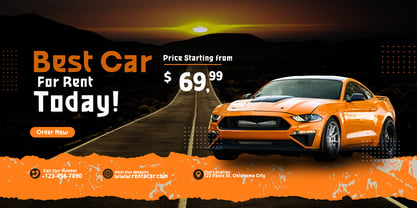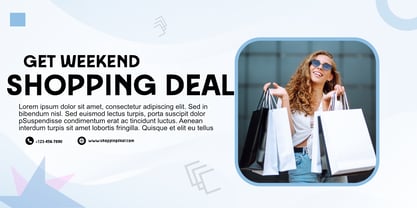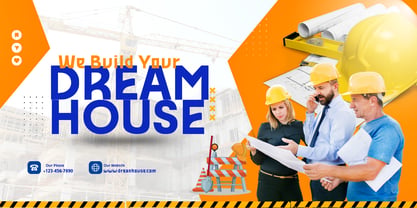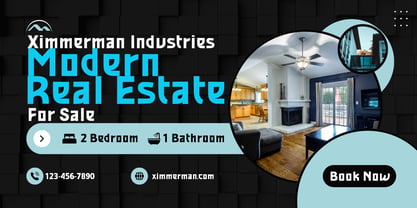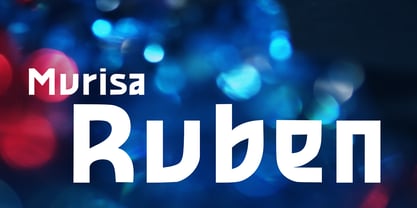
Murisa Ruben
Die Schriftfamilie Murisa Ruben wurde von Lili Sadili entworfen und von Murisa Studio veröffentlicht. Murisa Ruben enthält 2 Stile und Familienpaketoptionen. Mehr über diese Familie
✨ Murisa Ruben — Where Geometry Meets Prestige Murisa Ruben is not just a font — it's a statement. Bold, angular, and unapologetically modern, this geometric typeface commands attention with every character. Designed for visionaries who crave originality, Murisa Ruben blends sharp precision with artistic flair, making it the perfect choice for branding, editorial headlines, packaging, and luxury design. 🔠 Distinctive Forms From the daring curves of g and j to the architectural strength of m and n, each glyph is meticulously crafted to stand out while maintaining perfect visual harmony. 🌍 Multilingual Power Murisa Ruben proudly supports Eastern European languages, unlocking creative possibilities across borders and cultures. 🎯 Designed for Impact Whether you're launching a high-end product, curating a fashion campaign, or crafting a cinematic poster, Murisa Ruben delivers sophistication with edge — a rare combination that elevates any project. 💎 Exclusivity in Every Stroke This is a font for creators who value distinction. Murisa Ruben doesn’t follow trends — it sets them